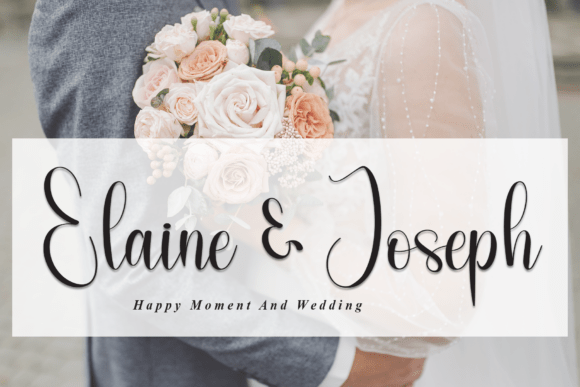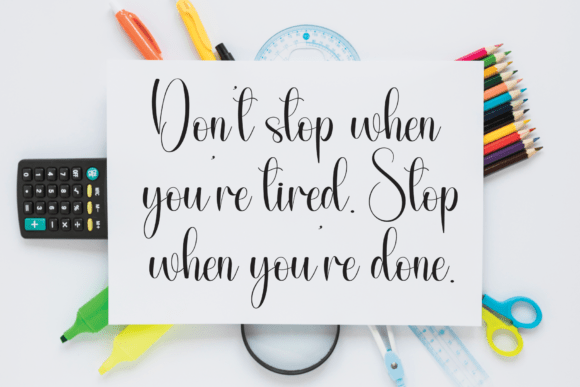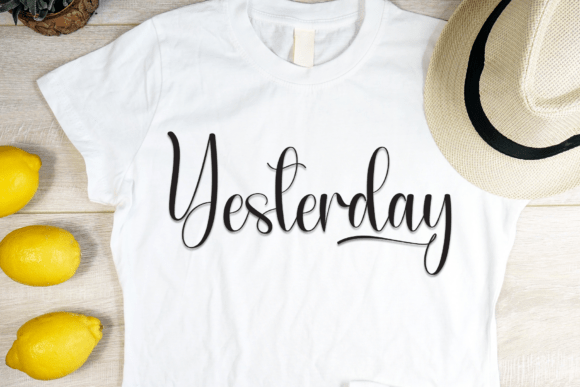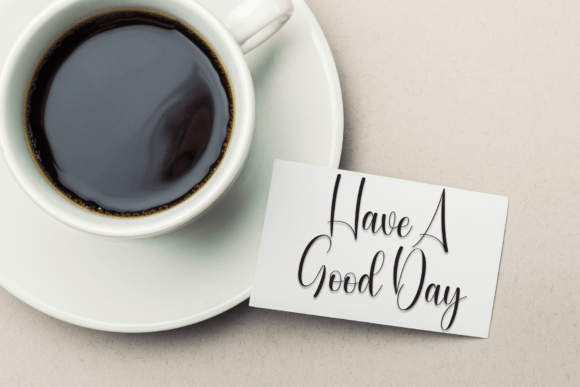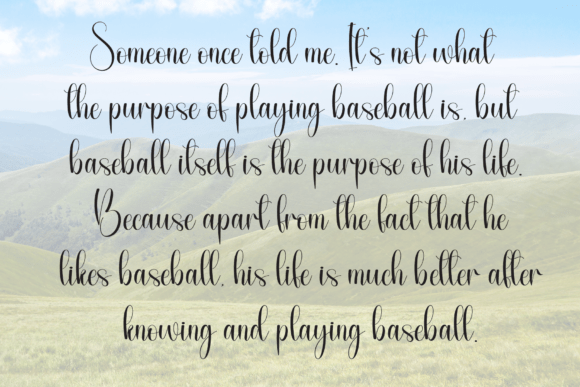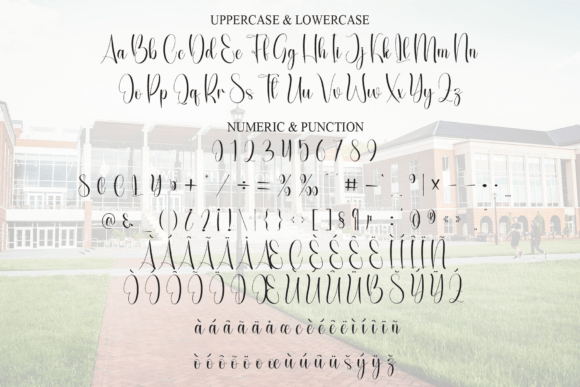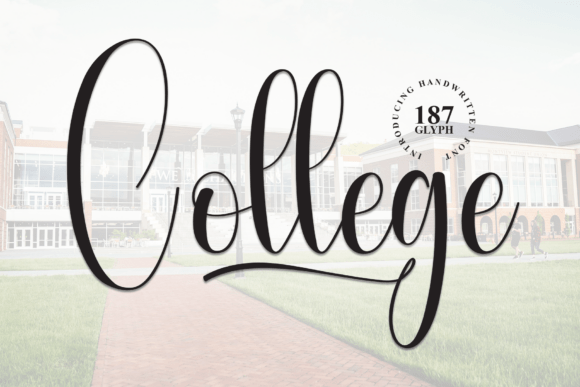
Introducing College Font: Elevate Your Designs with Elegance and Sophistication
Are you looking for a font that exudes elegance and sophistication? Look no further than College Font, a beautiful script font that is perfect for adding a touch of refinement to your designs. With its effortless beauty, graceful curves, and smooth connections, this font is ideal for creating stunning wedding invitations, logos, branding projects, and social media graphics.
The Beauty of College Font
College Font is a script font that flows with elegance and expressiveness. Its smooth connections and graceful curves create a sense of fluidity and movement, making it perfect for designs that require a touch of sophistication. Whether you’re designing something romantic or refined, this font brings a timeless charm to any project.
Perfect for Wedding Invitations and Branding Projects
Wedding invitations, logos, and branding projects require a font that is both elegant and sophisticated. College Font fits the bill perfectly. Its classic and refined look makes it ideal for creating beautiful wedding invitations that set the tone for a special day. Additionally, its unique and expressive style makes it perfect for branding projects that require a touch of personality.
Why Choose College Font?
There are many reasons why College Font stands out from the rest. Here are just a few:
- Elegant and Expressive: College Font is a script font that exudes elegance and sophistication. Its smooth connections and graceful curves create a sense of fluidity and movement.
- Timeless Charm: This font brings a timeless charm to any design, making it perfect for projects that require a classic and refined look.
- Versatile: College Font is perfect for a variety of design projects, including wedding invitations, logos, branding projects, and social media graphics.
- Easy to Read: Despite its elegant and expressive style, College Font is easy to read, making it perfect for designs that require a touch of sophistication without sacrificing legibility.
Tips for Using College Font
Here are a few tips for using College Font in your designs:
- Pair it with a Sans-Serif Font: Pair College Font with a sans-serif font to create a beautiful contrast that adds visual interest to your design.
- Use it for Headings and Titles: College Font is perfect for headings and titles, where its elegant and expressive style can shine.
- Experiment with Colors and Textures: Don’t be afraid to experiment with different colors and textures to add depth and interest to your design.
College Font is a beautiful script font that is perfect for designers and crafters looking to add a touch of elegance and sophistication to their designs. With its effortless beauty, graceful curves, and smooth connections, this font is ideal for creating stunning wedding invitations, logos, branding projects, and social media graphics. Whether you’re designing something romantic or refined, College Font brings a timeless charm to any project.
Get Creative with College Font
So why wait? Get creative with College Font today and elevate your designs to new heights. With its versatility, elegance, and expressiveness, this font is sure to become a staple in your design toolkit.